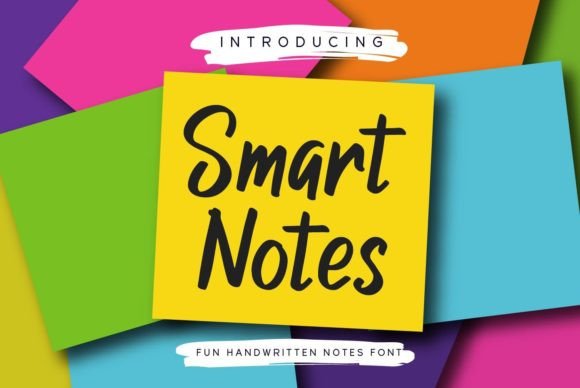
Introducing Smart Notes Font: A Stroke of Rustic Charm for Your Creative Endeavors
In a world of digital monotony, Smart Notes Font emerges as a refreshing breath of authenticity, a delicate symphony of handwritten strokes that captures the essence of rustic charm. Its graceful curves and organic flow evoke a sense of nostalgia, inviting you to embrace the beauty of handwritten artistry.
Step into a realm where elegance meets simplicity, where your words transform into exquisite works of art. With Smart Notes Font, your wedding invitations, birthday cards, and personal branding efforts will radiate a touch of timeless sophistication. Imagine your logo adorned with this elegant script, exuding an aura of refinement that sets you apart from the ordinary.
Whether you're a seasoned designer seeking to add a touch of rustic charm to your projects or a creative enthusiast exploring the world of typography, Smart Notes Font is your perfect companion. Its versatility knows no bounds, allowing you to weave your creative magic effortlessly across a myriad of projects.
Unleash your imagination and let Smart Notes Font guide you through a journey of artistic expression. Transform ordinary text into captivating headlines, breathe life into social media posts, or create stunning logos that leave a lasting impression. The possibilities are endless, limited only by the depths of your creativity.
At the helm of Smart Notes Font's creation stands P4tcreativa, a visionary font designer renowned for capturing the essence of authenticity and elegance. With meticulous attention to detail, P4tcreativa has crafted each letterform to perfection, ensuring that Smart Notes Font exudes an air of effortless grace and charm.
Join the ranks of creative visionaries who have embraced Smart Notes Font as their go-to choice for adding a touch of rustic elegance to their designs. Let your projects blossom with the timeless beauty of handwritten typography, and watch as Smart Notes Font transforms your creative vision into a tangible masterpiece.